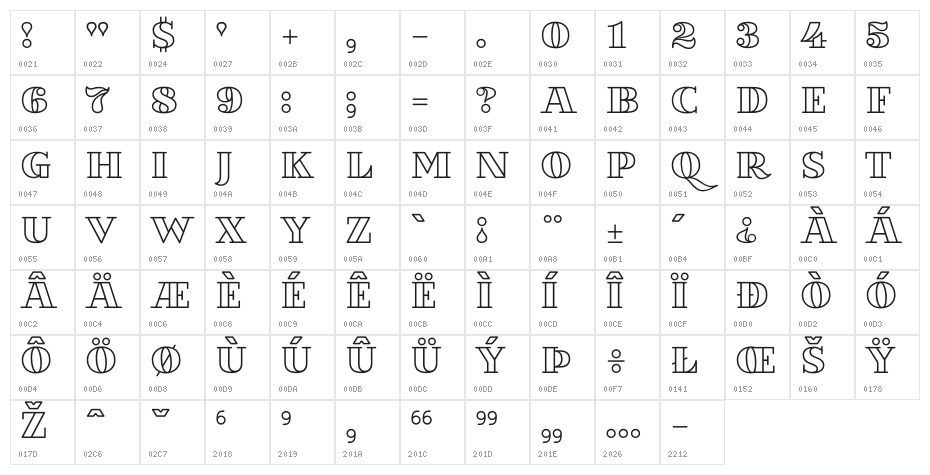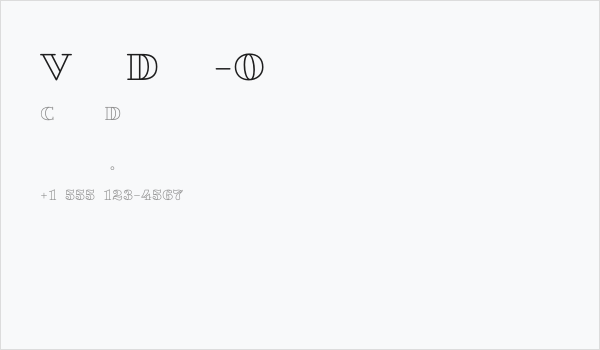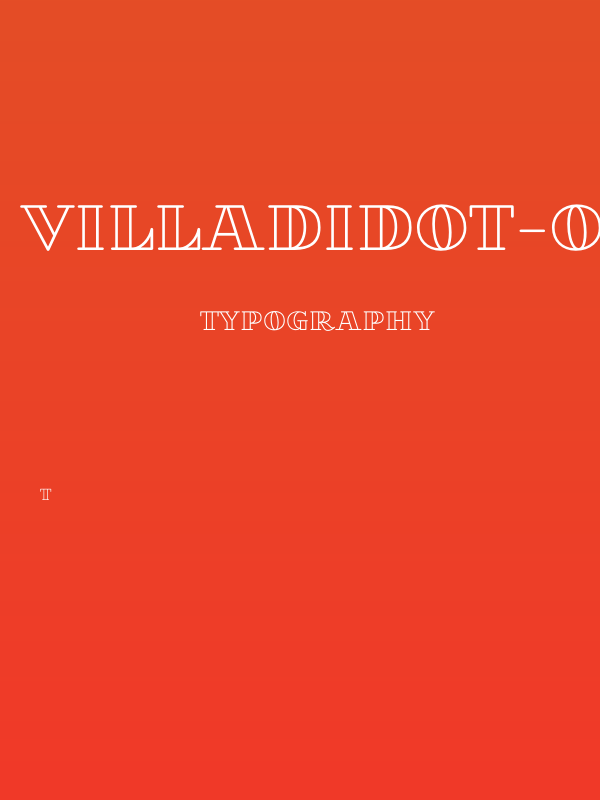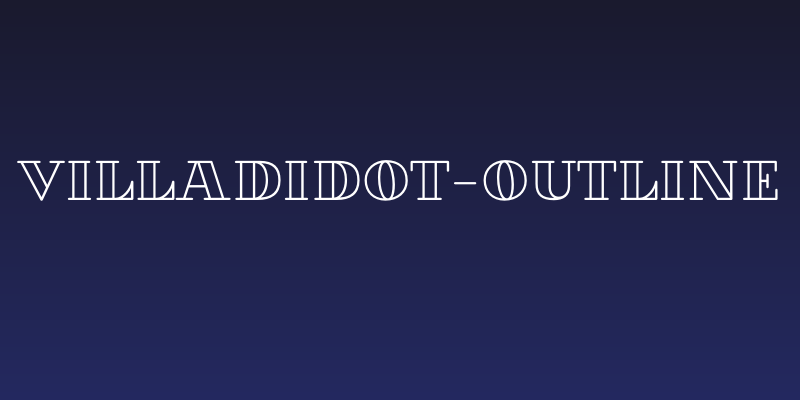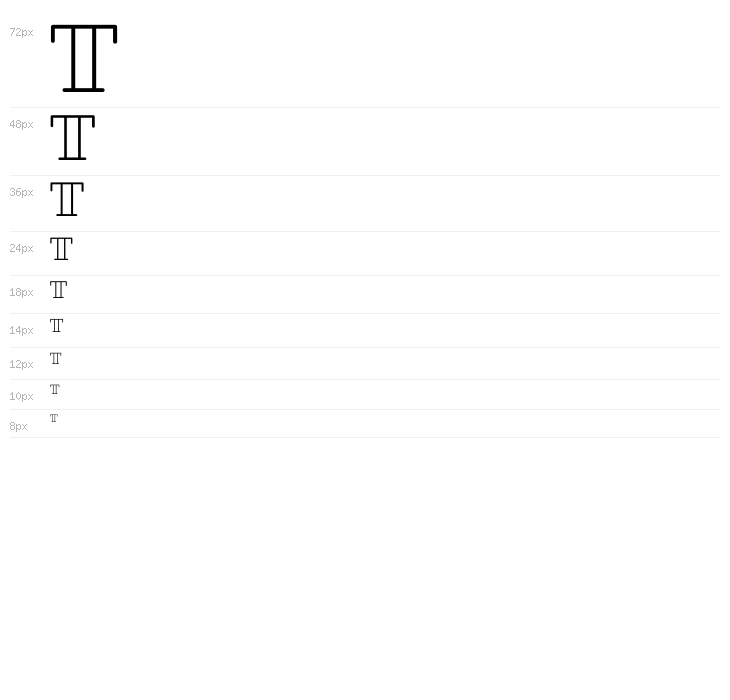
VillaDidot-Outline Font
VillaDidot-Outline Description
This font features an elegant and sophisticated outline style, characterized by its high contrast between thick and thin strokes. The uppercase letters exhibit a classic serif design with a modern twist, incorporating delicate curves and sharp edges. The numerals and special characters maintain the same refined aesthetic, making them suitable for decorative purposes. The overall appearance is both stylish and timeless, ideal for projects that require a touch of elegance and class.
| Proposed Projects | Ideal for luxury branding, wedding invitations, editorial design, and high-end product packaging. |